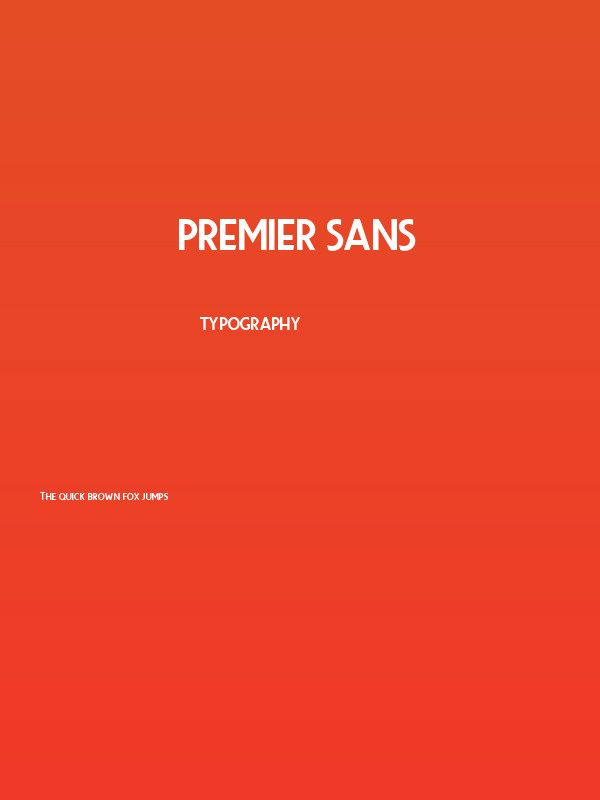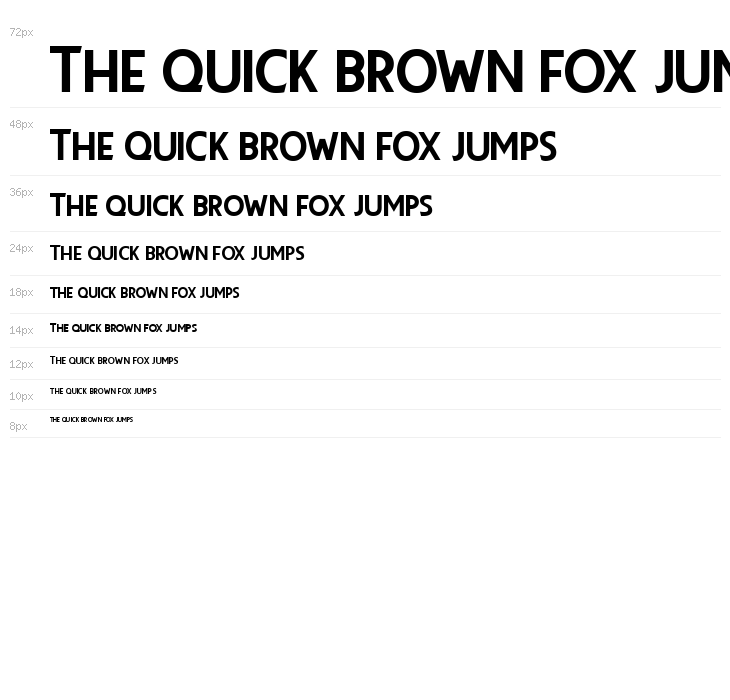
Premier Sans Font
| Caso d'uso | Headlines, Logos, Branding |
| Progetti proposti | This font is perfect for branding, advertising campaigns, website headers, and editorial design. Its boldness makes it suitable for logos and signage, while its clarity ensures readability in digital and print media. |